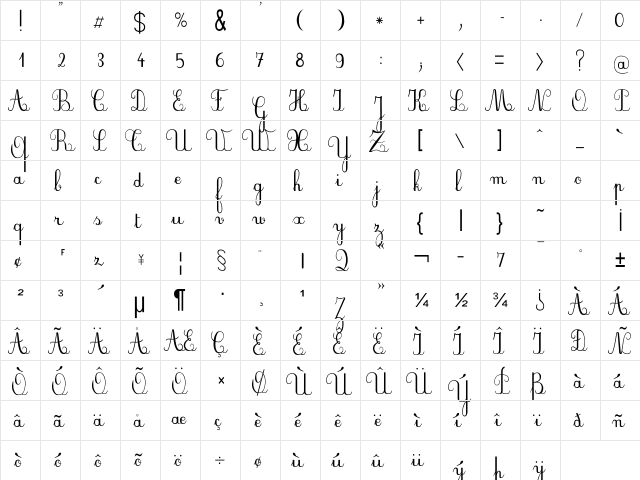
PlumNDE Regular
Design Context for PlumNDE Typeface
PlumNDE takes a measured approach to typography — its balanced proportions and neutral character make it a reliable workhorse for both digital and print work.